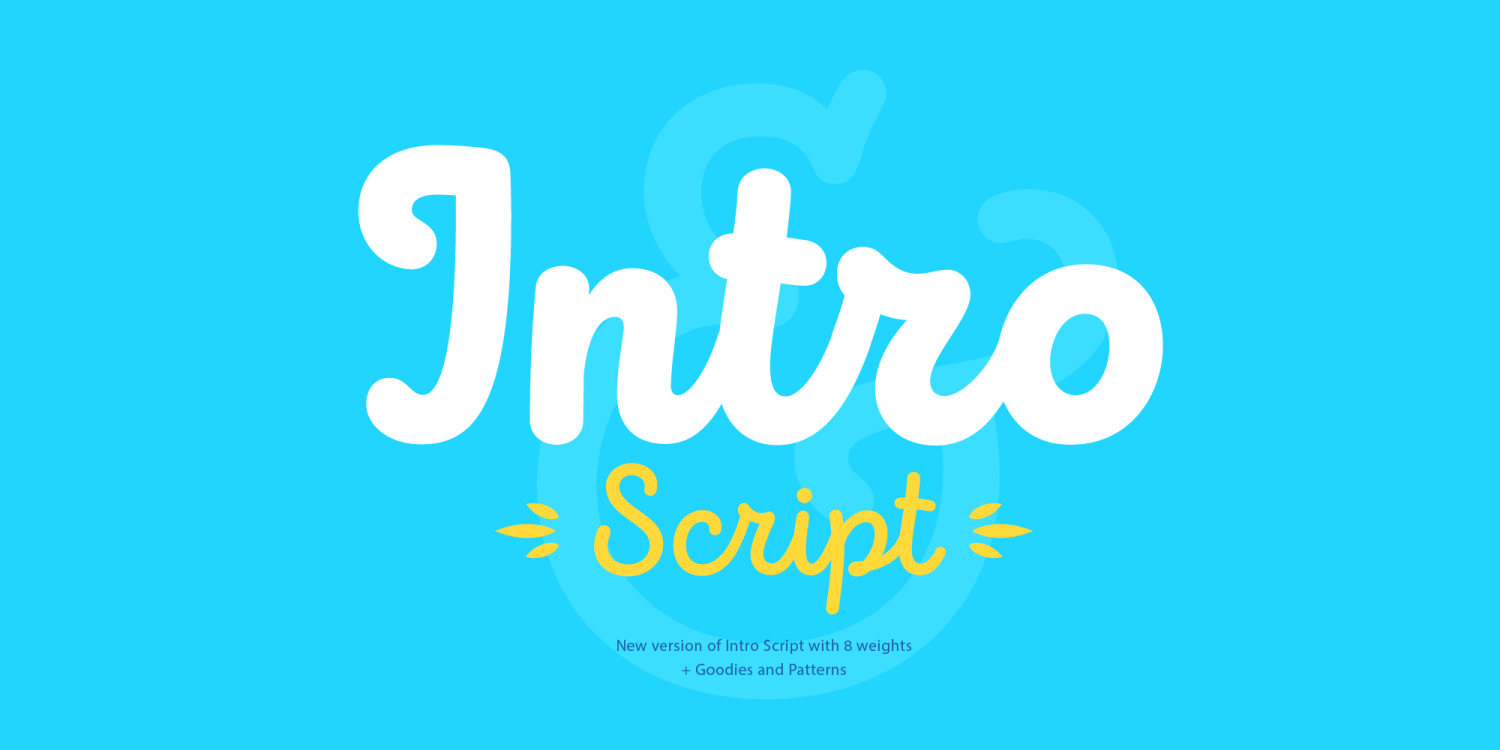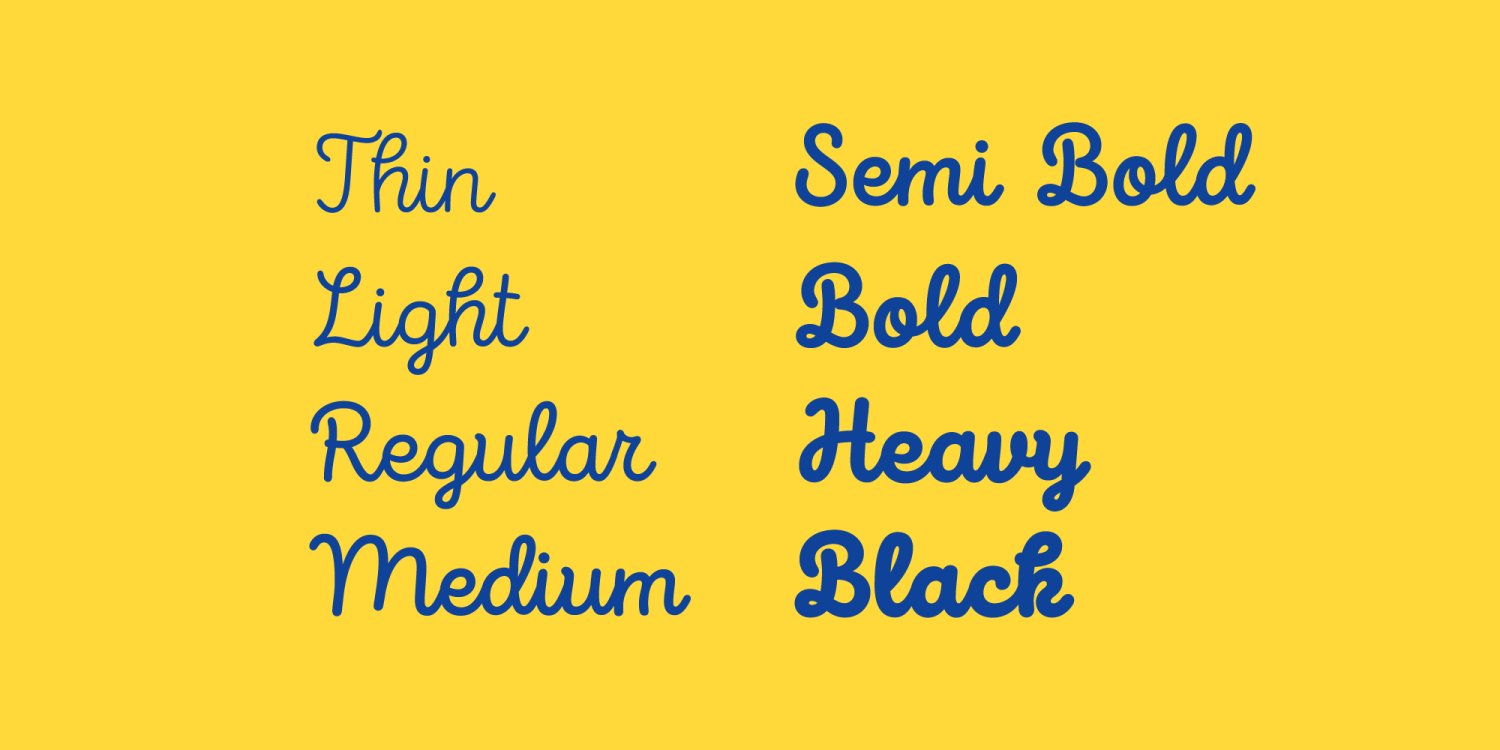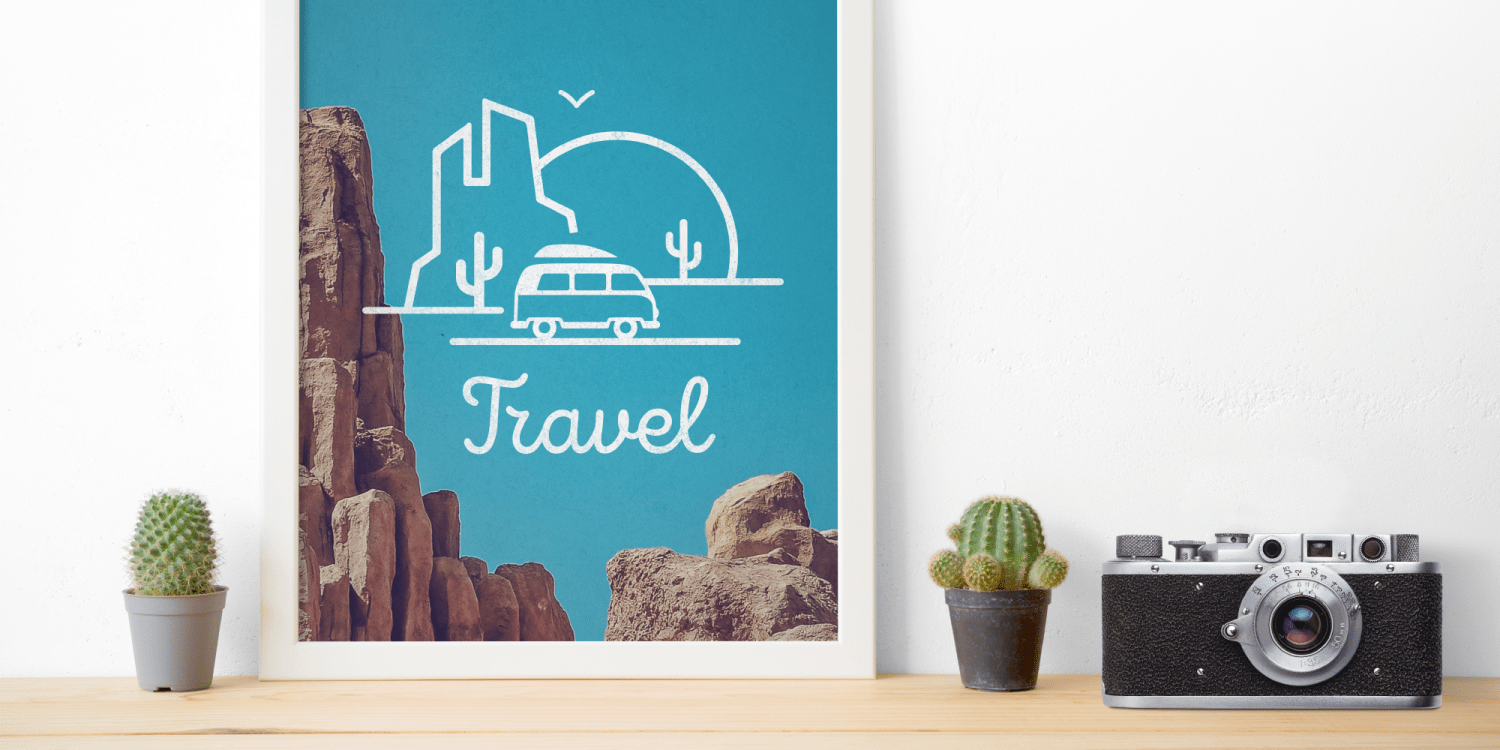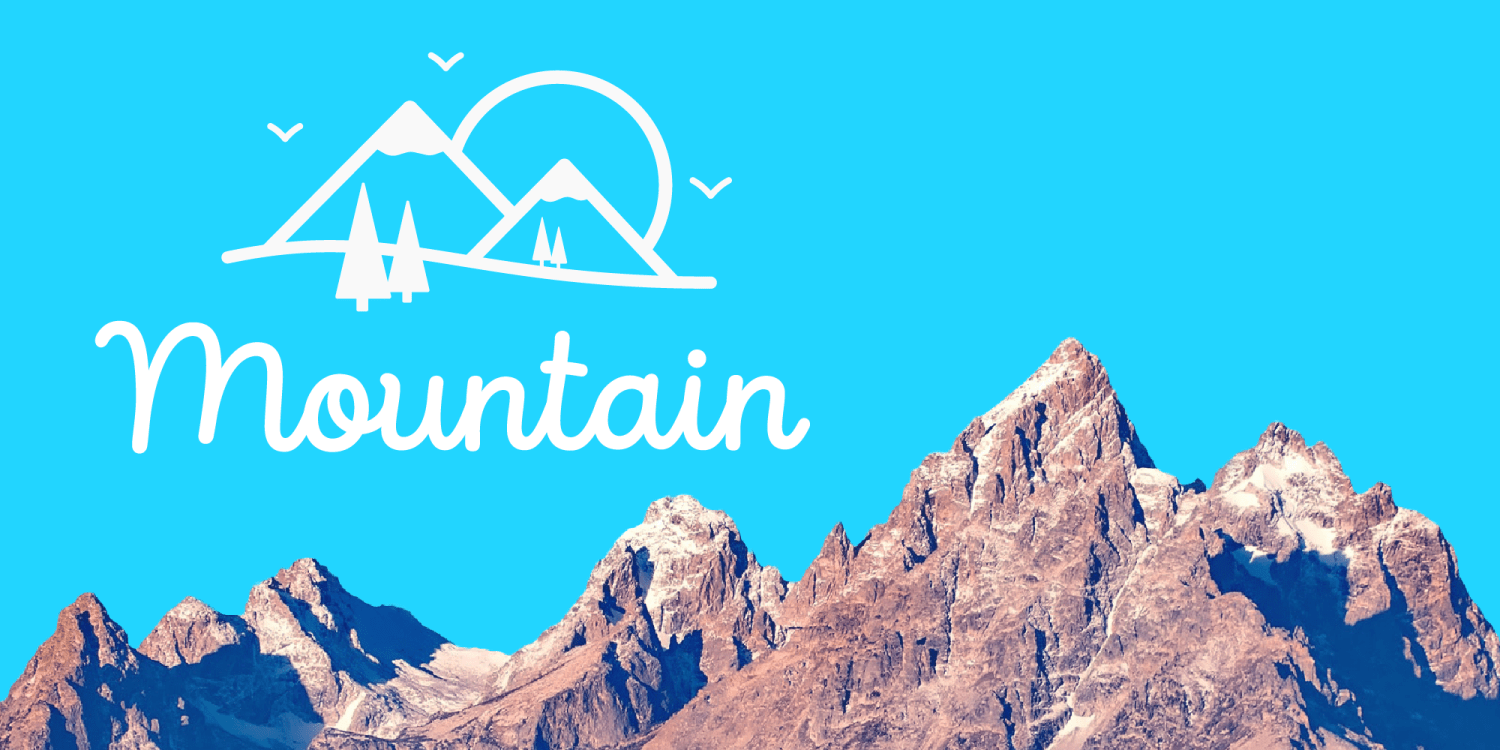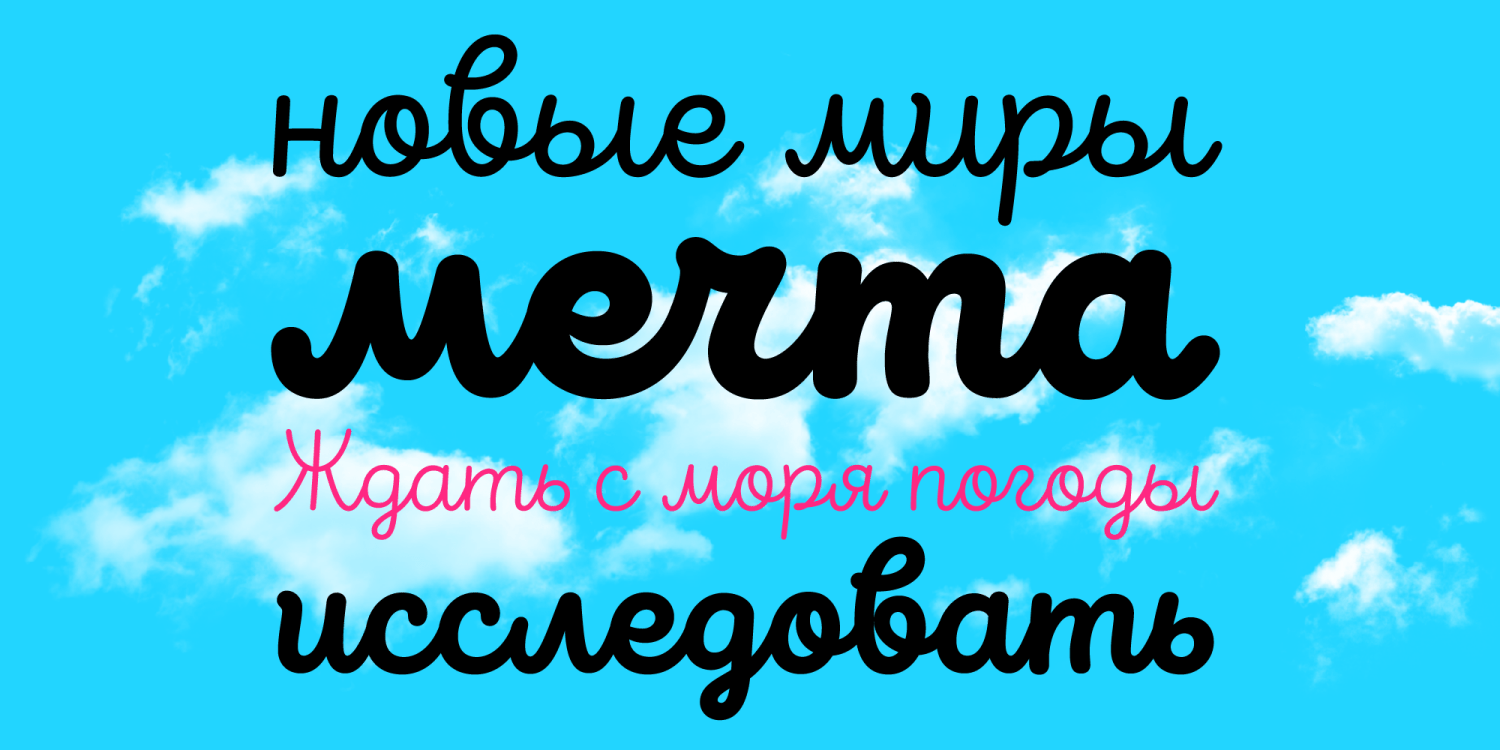
Intro Script
Font Family by Fontfabric
Intro Script emerged from the Intro Rust family, crafted by Ventsislav Dzhokov at Fontfabric. This expressive collection extends the grunge-infused Intro Rust sans into a warm, flowing script system, complete with layered decorative elements—words, patterns, and banners—making it the perfect toolkit for eye-catching, handcrafted typographic design.
Intro Script is a Script typeface designed for creative headlines, branding, packaging, posters, and social media visuals. Its unique blend of sophisticated script styles and ready-made decorative “goodies” makes it an excellent choice for designers, illustrators, and brand creators seeking tactile, handcrafted typography.
With a total of 11 styles, advanced OpenType features, and multilingual support, Intro Script ensures versatility and high-quality typography for every project. Whether you’re working on logo design, event posters, lifestyle packaging, greeting cards, or social media campaigns, you’ll enjoy layerable script and decorative styles for polished, professional results. Download Intro Script today!